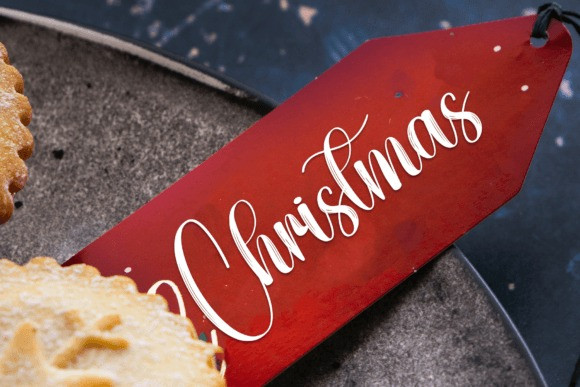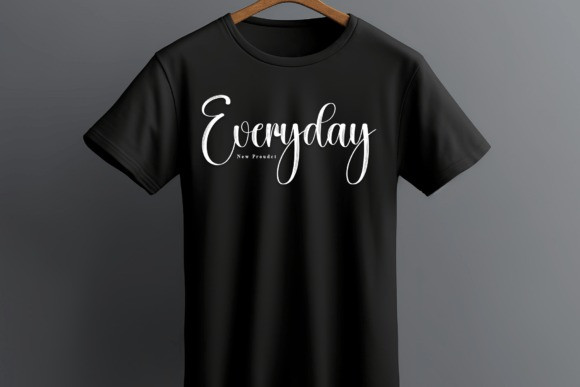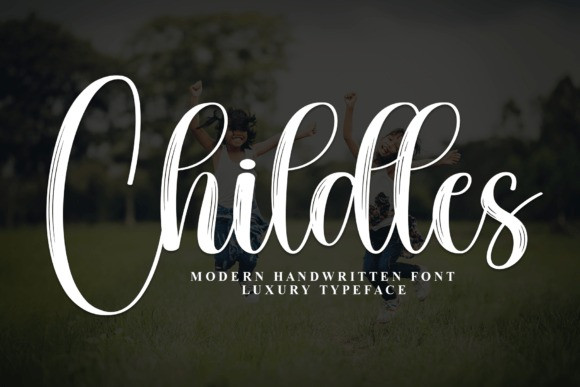
Childles Script Font
Childles Script Font is a bold, handwritten font that looks playful and fun. Its thick, easy-to-read letters give it a friendly feel, making it great for kids’ projects, invitations, or any cheerful designs!